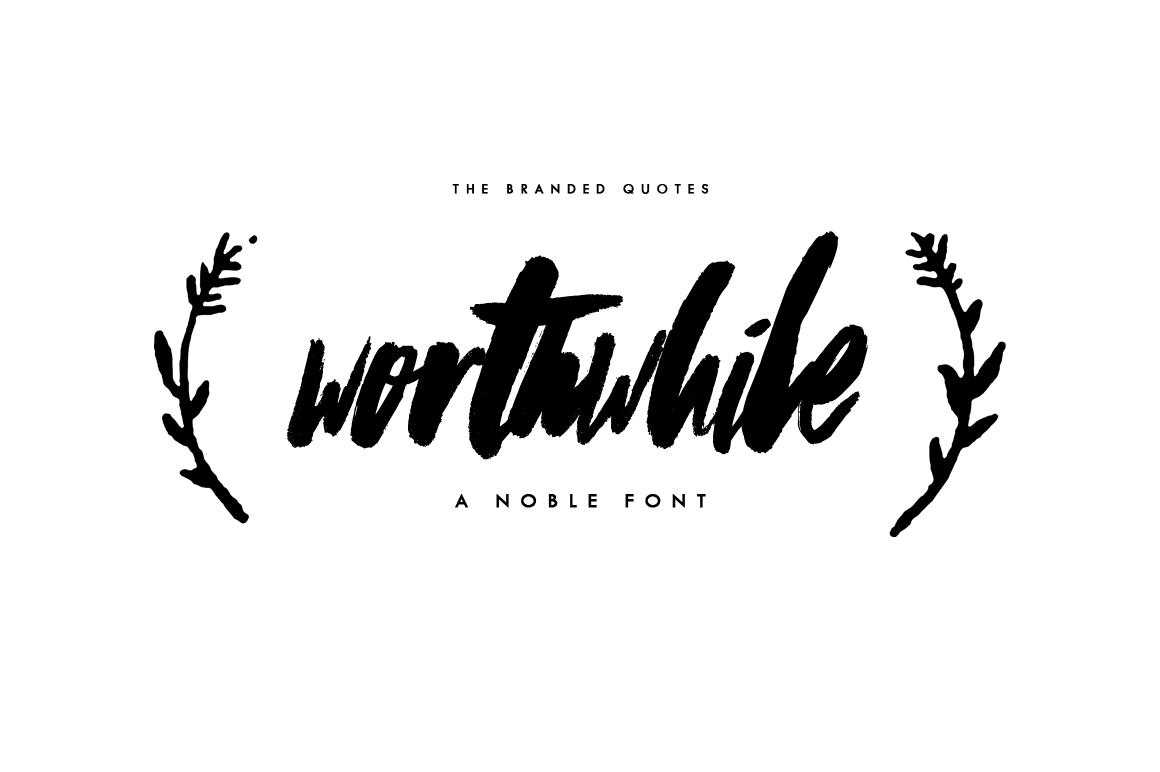
Worthwhile Font
Inspired by a noble phrase brushed on a blank sheet - Worthwhile Font.
Your frustration on pairing your satire artworks with the typeface it deserves is over! Even a plain background, this font will standout! Each glyph were carefully given the best weights and strokes to create an imbalance, natural yet harmonious effect to a word and phrase. Minimal and informal in one!
Worthwhile Regular - Includes the Capitals, Lowercase, Punctuation and Alternates.
Worthwhile Alternates - Lowercase plus the Alternates which can easily be accessed in the Uppercase mode (or hold/release Shift while typing to form a unique look of a word). Combine to fit the effect you want!